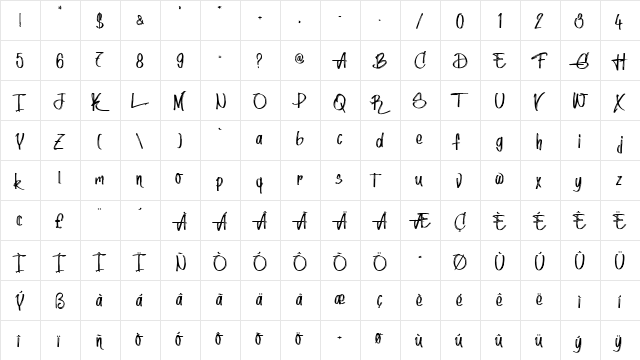
Red Lipstick - Personal Use Regular
| Foundry | Typhoon Type - Suthi Srisopha |
| Designer | Typhoon Type - Suthi Srisopha |
Design Context for Red Lipstick - Personal Use Typeface
Red Lipstick - Personal Use is a composed and adaptable typeface that performs quietly and consistently across a wide range of design contexts.